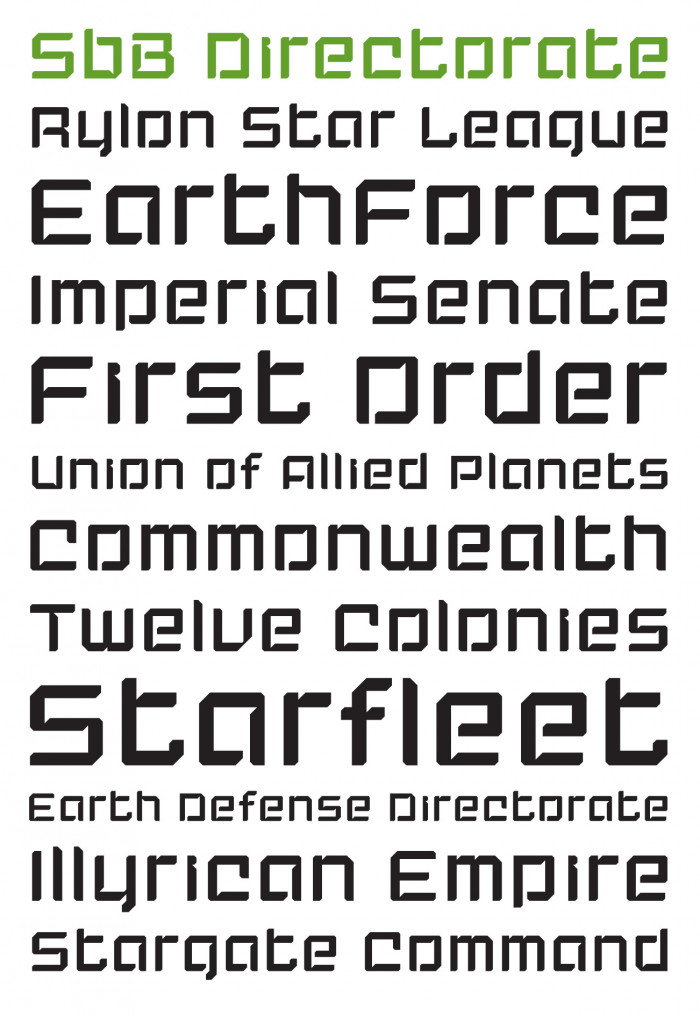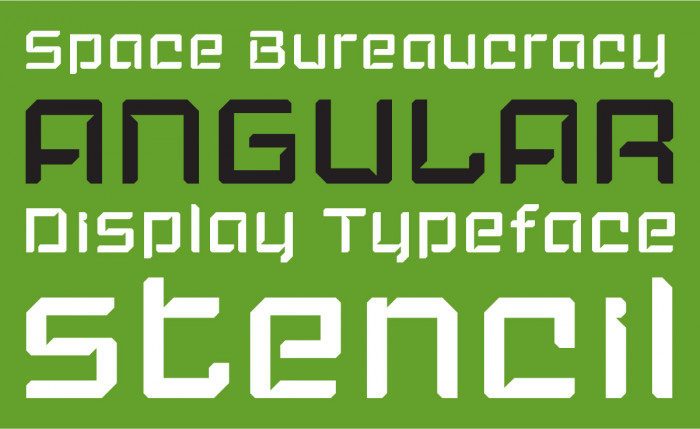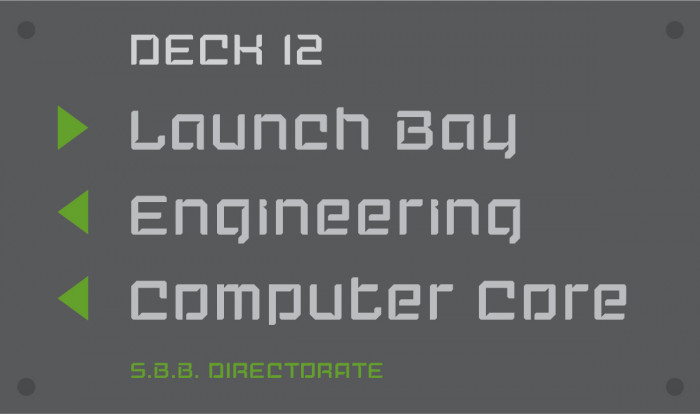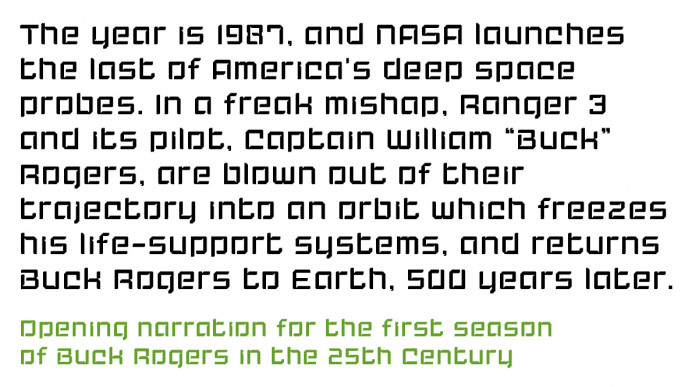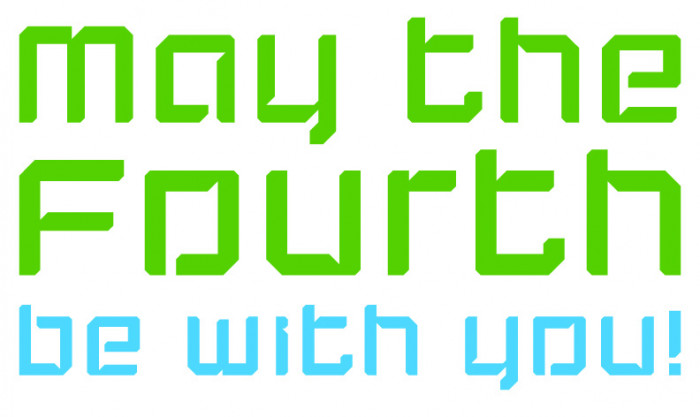
• SbB Directorate is my typographic ode to science fiction bureaucracy.  Directorate is named for the government in the TV “classic” Buck Rogers in the 25th Century. From the Alliance in Firefly to the Federation in Star Trek, the bureaucratic government is a theme through science fiction, and I always imagined they’d have a typeface like this…
Good call, Merrybot. Cleaned it up a bit to improve differentiation between D+O and o+a.
I may still tweak the a. Not 100% happy with it.